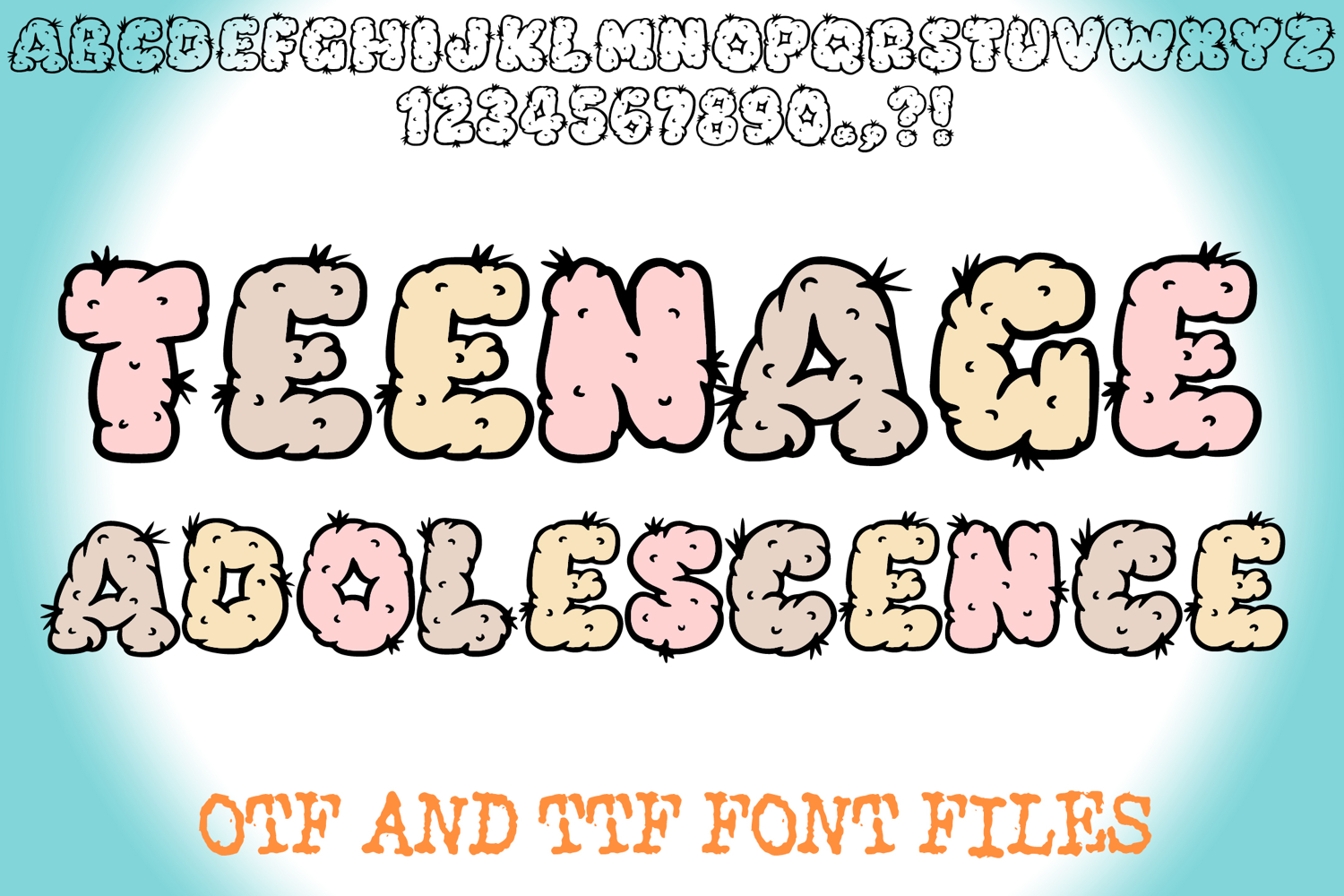
Teenage Adolescence Alphabet Lettering ABC Skin Text Font OTF
A unique style font where you can create your own words and colour them to your vision!
Contains OTF and TTF file. Capital letters , . ? ! and numbers only.